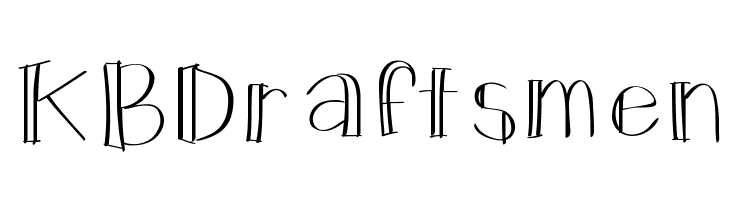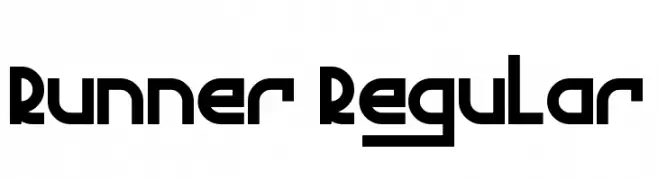
A bold, geometric font with a futuristic and modern design.
A bold, decorative font with a vintage, three-dimensional style.
A bold, playful font with thick, rounded strokes and high contrast, perfect for creative projects.
A bold, geometric font with a futuristic, condensed style.
A bold, angular font with a futuristic, geometric style.
A dynamic and expressive handwritten font with fluid, cursive letterforms.
A playful, handwritten font with irregular strokes and a casual style.
An elegant and fluid script font with graceful curves and flowing lines.